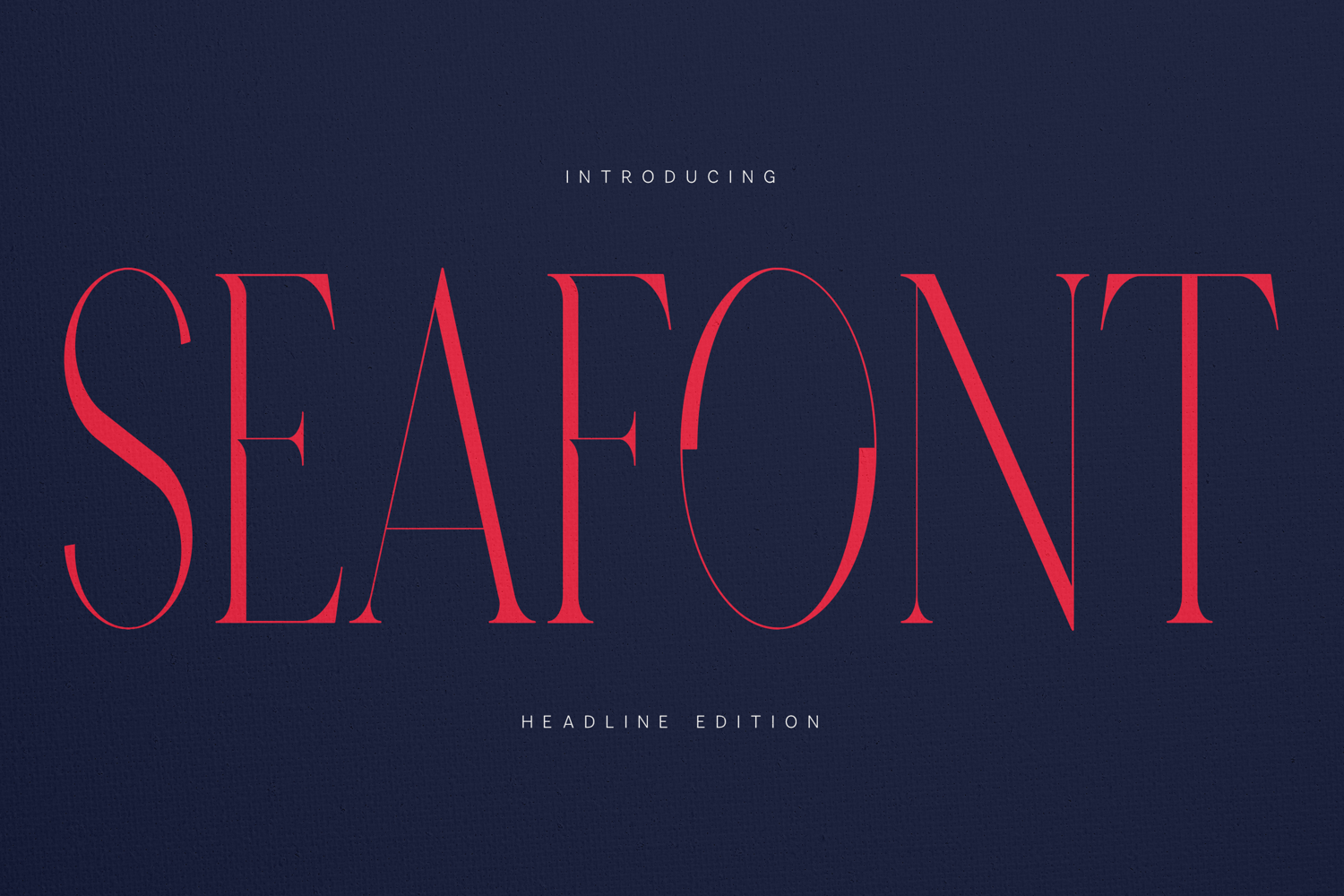
Seafont Elegant Modern Display Serif
Seafont is a refined modern display serif designed for striking headlines and sophisticated branding.
With its ultra-high contrast strokes, elegant vertical proportions, and distinctive sculptural details, Seafont blends classic serif heritage with a contemporary editorial aesthetic. The result is a typeface that feels both luxurious and modern, perfect for high-impact typography.
Its refined letterforms and dramatic contrast make it ideal for large-scale typography where elegance and visual presence matter most.
Seafont brings a strong editorial personality while maintaining clarity and sophistication across design applications.
Perfect For• Fashion branding
• Luxury packaging
• Magazine headlines
• Editorial layouts
• Logo design
• Posters
• High-end advertising
• Modern branding systems
• High-contrast serif design
• Elegant headline proportions